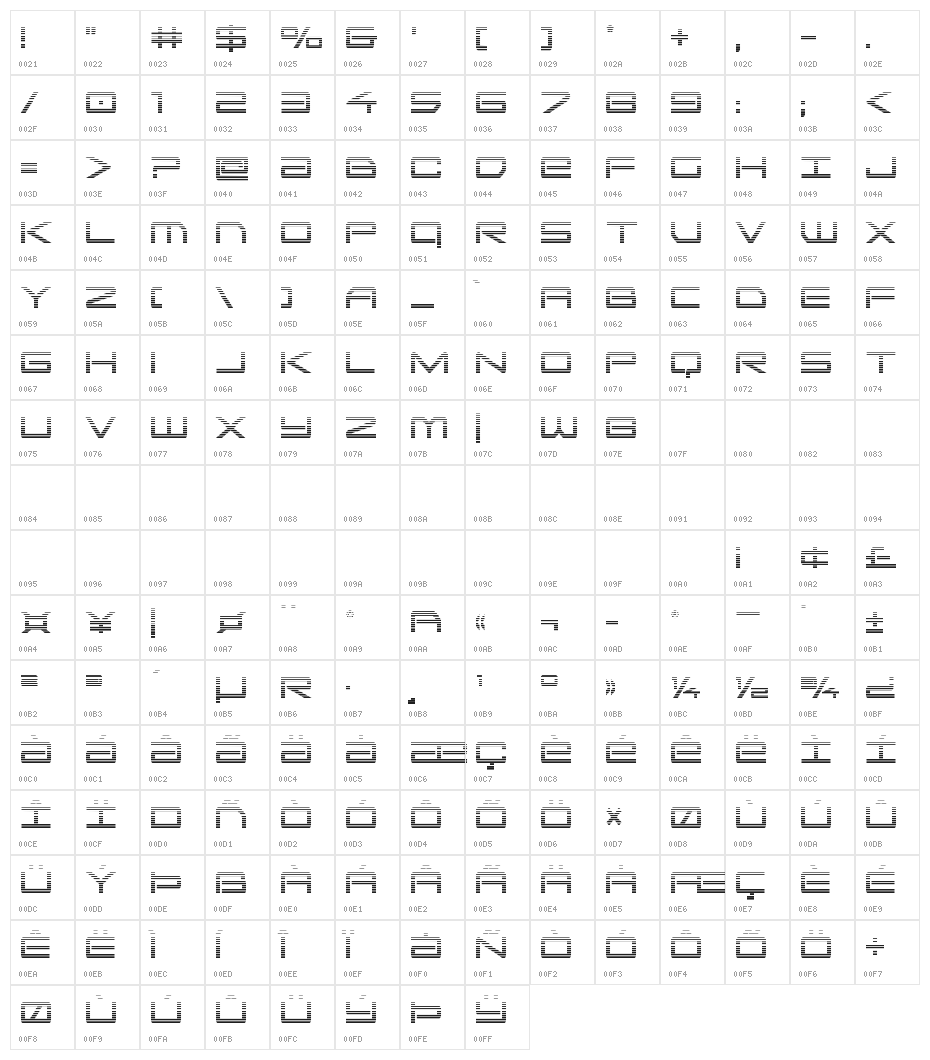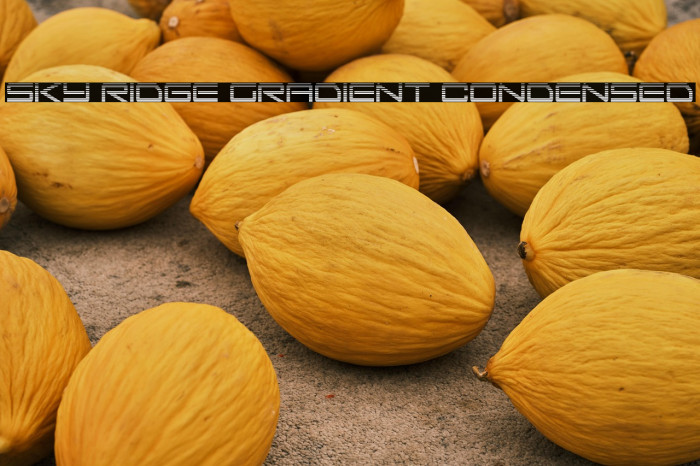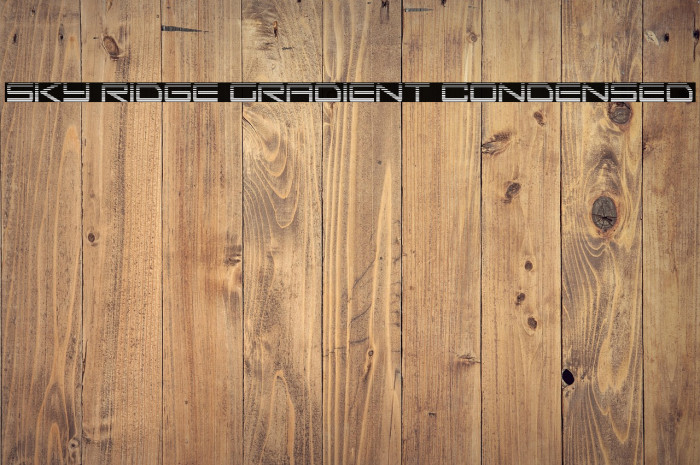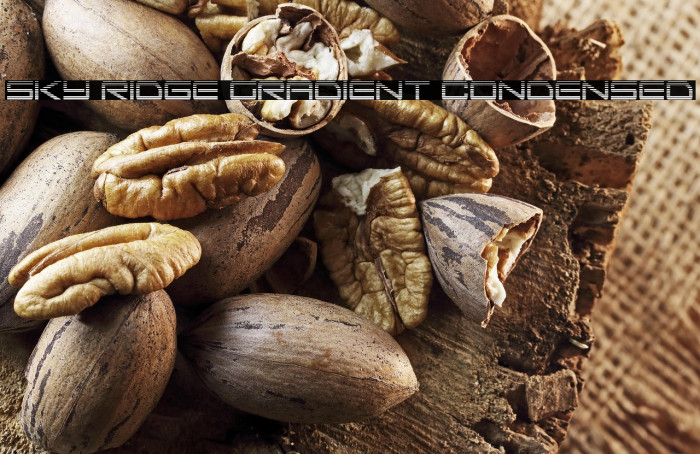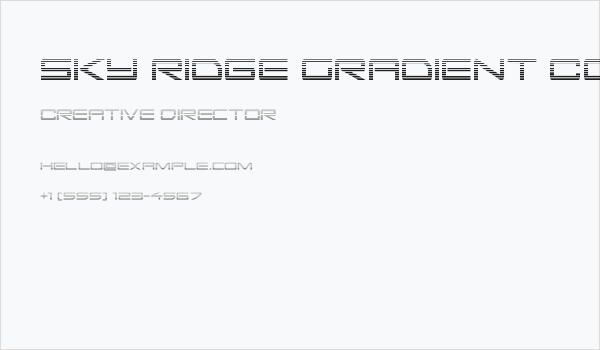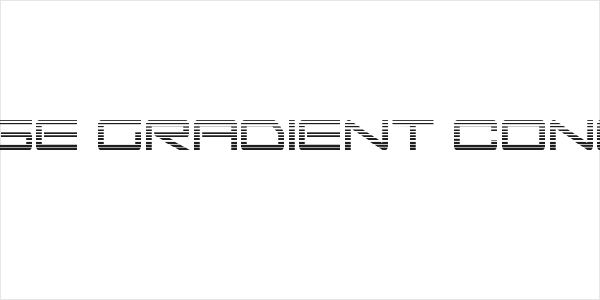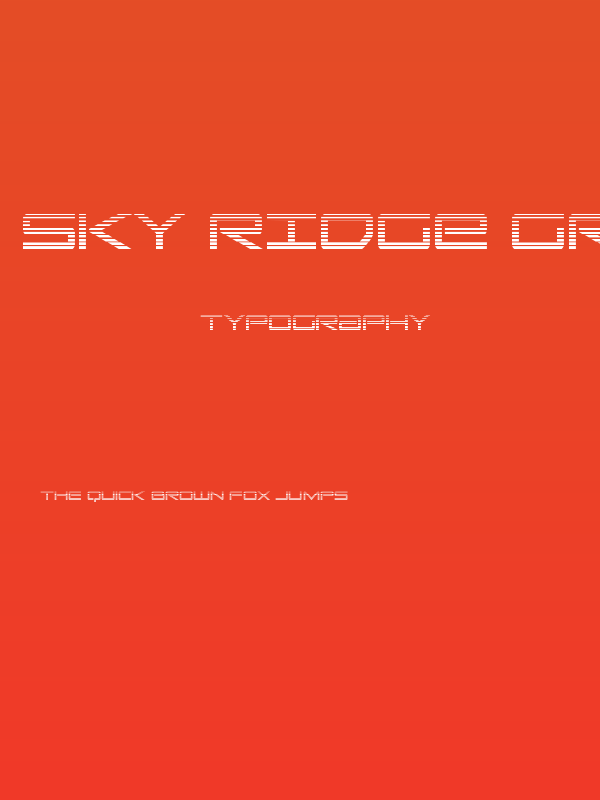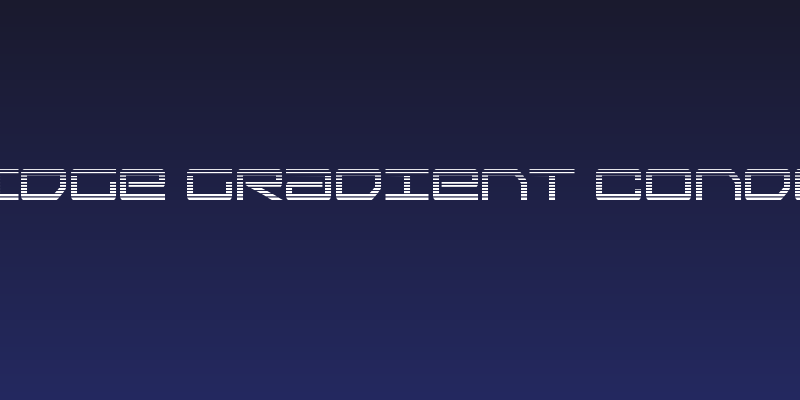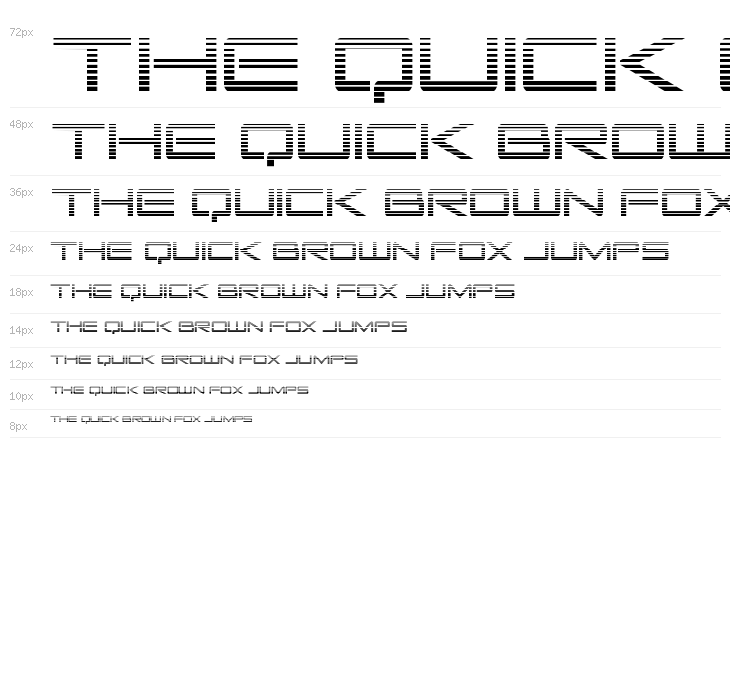
Sky Ridge Gradient Condensed Font
Sky Ridge Gradient Condensed Description
This font features a unique, futuristic design with a gradient effect created by horizontal lines that form each character. The condensed style gives it a sleek and modern appearance, making it stand out with its distinct geometric shapes. The uppercase and lowercase letters maintain a consistent style, with the numbers and special characters following the same design principles. The font's linear elements and condensed form make it ideal for projects that require a modern and technological aesthetic.
| Proposed Projects | Ideal for technology branding, sci-fi themed designs, digital interfaces, and modern advertising. |